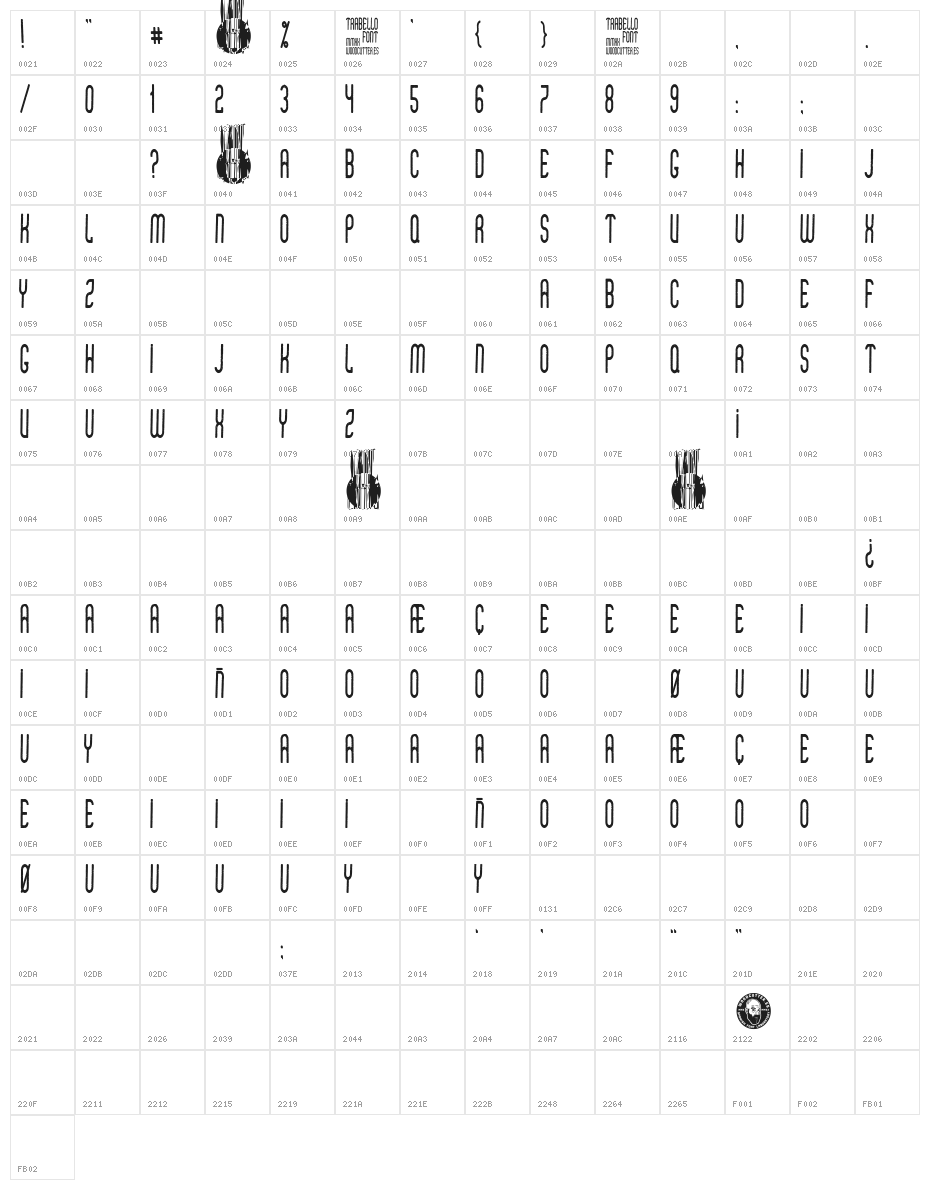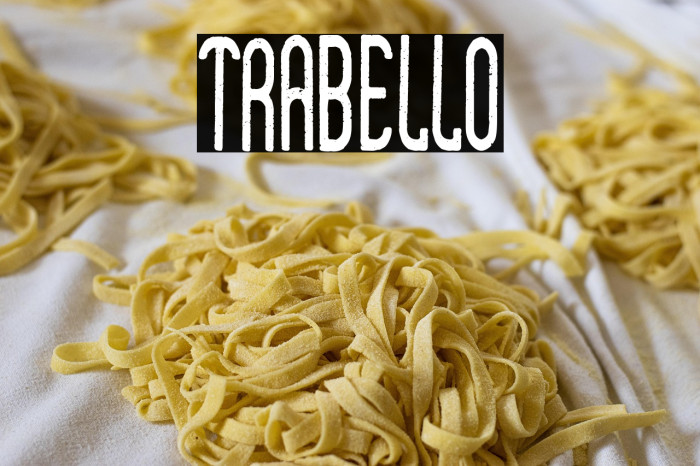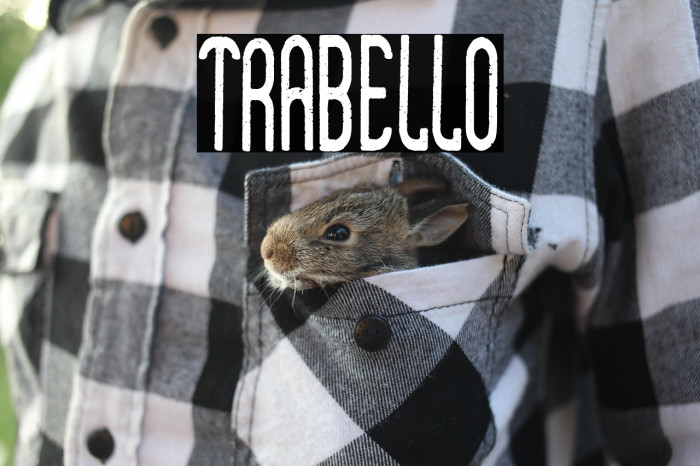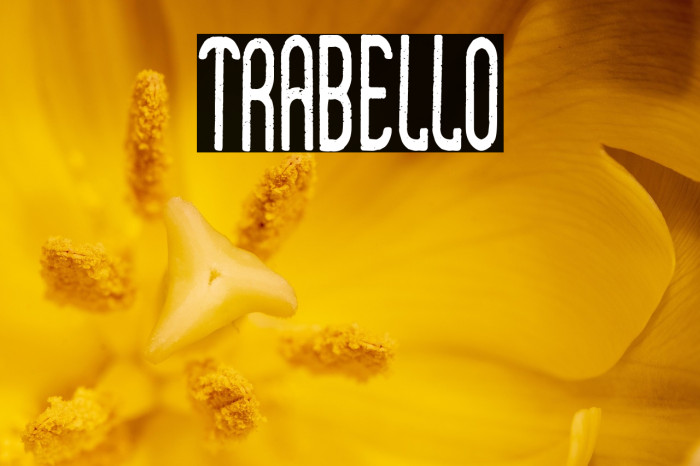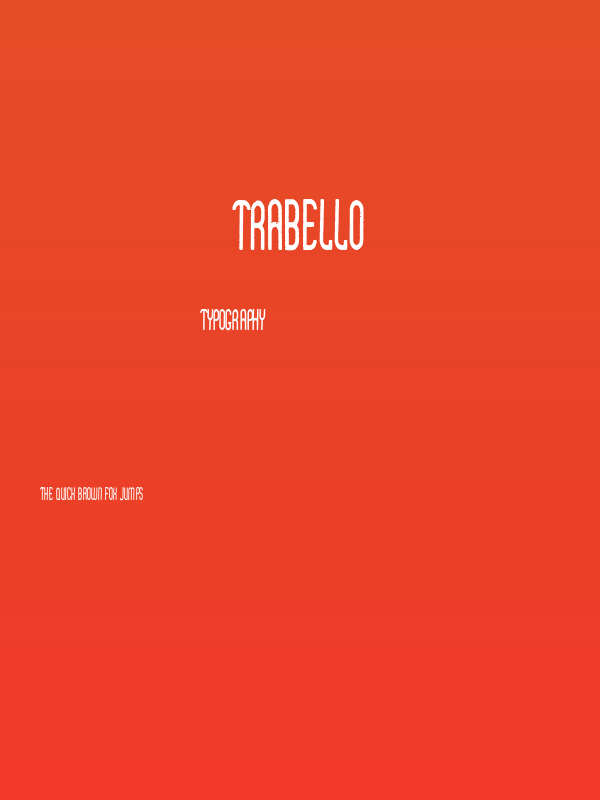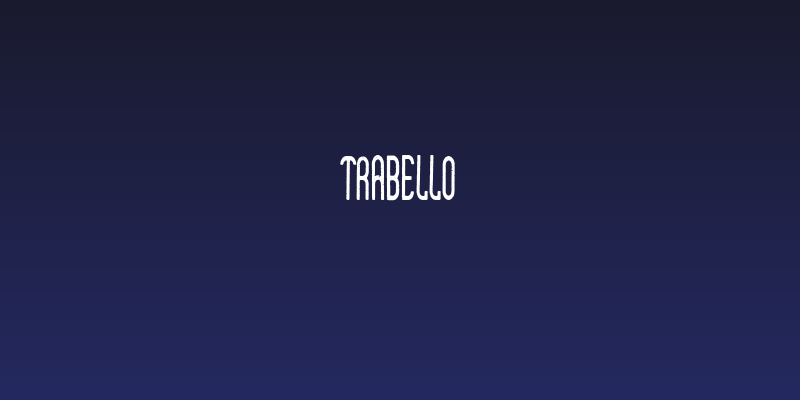
Trabello Font
Trabello Description
This font features a unique, elongated design with rounded edges, giving it a distinct and modern appearance. The characters are tall and narrow, creating a sleek and streamlined look. The uppercase and lowercase letters maintain a consistent style, with a slight vintage touch due to the textured, distressed effect. This adds a handcrafted feel, making it suitable for projects that require a blend of modernity and a touch of nostalgia. The numerals and special characters follow the same design principles, ensuring uniformity across all glyphs.
Overall StyleModern, Vintage
Proposed ProjectsIdeal for branding, posters, packaging, and any design project that seeks a modern yet vintage aesthetic.